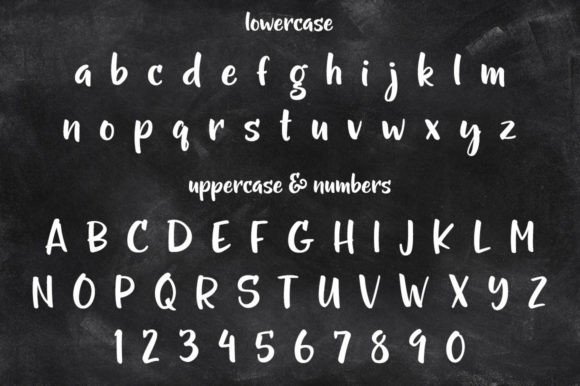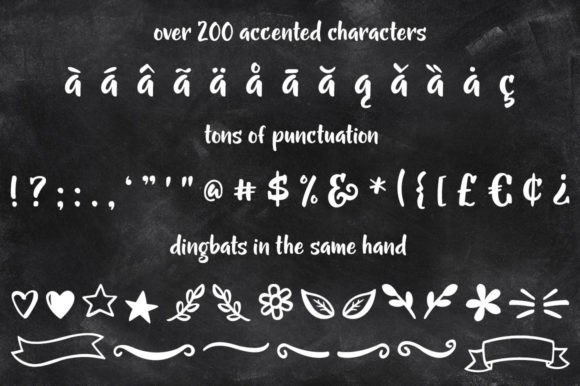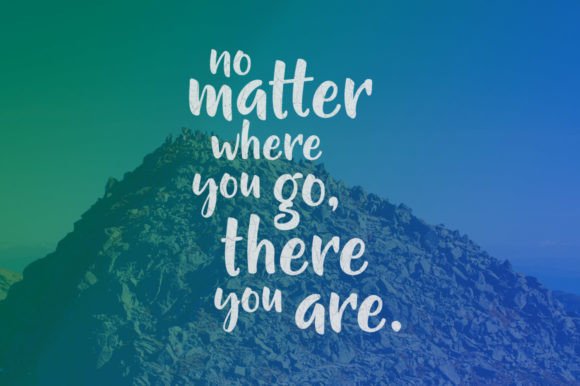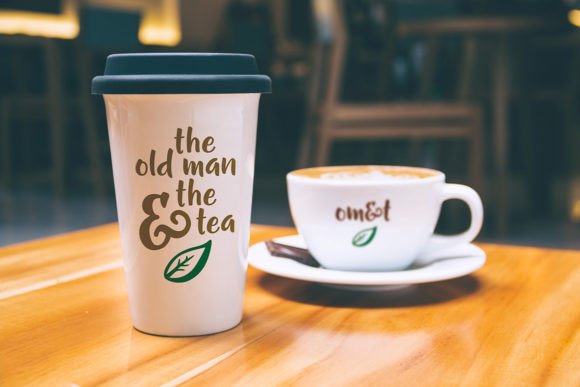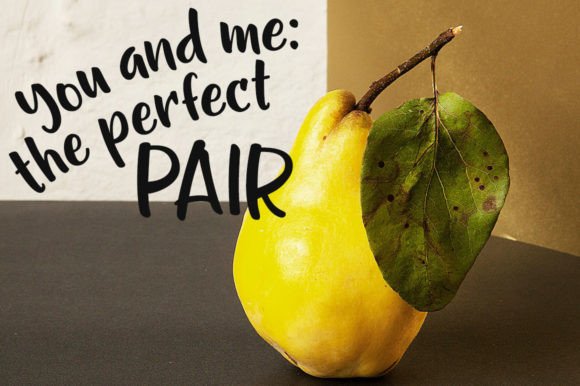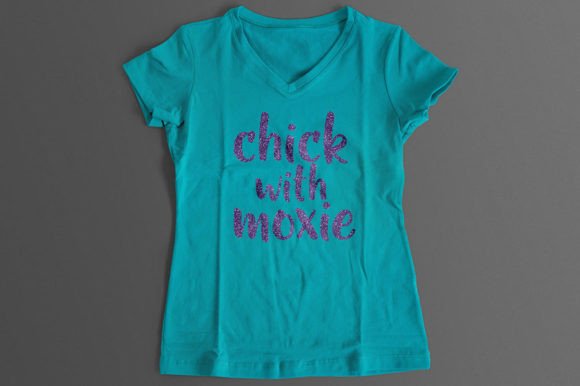
Introduction to Gumption Font
Have you ever found yourself stuck on a creative project, longing for the perfect typography to bring your vision to life? I know I have. There’s something about the imperfect charm of handwritten fonts that can make a design truly pop. That’s why I’m excited to introduce you to the Gumption Font, a beautifully crafted brush script font that’s perfect for adding a touch of whimsy to your next design project.
As a designer, you know how valuable a high-quality font can be. That’s why I love that the Gumption Font is available for free download, making it an accessible design resource for creatives of all levels. With its smooth curves and lines, this font is sure to add a touch of elegance to any design, whether you’re working on a free download project or a commercial campaign with a transparent background.
Key Features of Gumption Font
- High-quality font design suitable for creative projects, available for free download.
- Unique, modern font style with a transparent background, ideal for graphic design and digital art.
- Large character set, including uppercase and lowercase letters, numbers, and special characters.
Honest Review: Gumption Font
I recently came across the Gumption Font, and I was impressed with its clean and modern design. This free download is perfect for designers looking for a high-quality font to add to their creative project.
- ✨ The font’s transparent background makes it easy to work with, allowing for seamless integration with any design.
- ✨ The font’s versatility is impressive, suitable for both digital and print designs.
- ✨ The Gumption Font is highly customizable, making it an excellent design resource for designers who value flexibility.
- ⚠️ The font’s character set is somewhat limited, which may not be ideal for projects requiring a wide range of characters.
- ⚠️ The font may not be suitable for designs that require a lot of text manipulation, as it can become difficult to work with.
Overall, I’m impressed with the Gumption Font’s design and versatility. While it may have some limitations, it’s still a valuable addition to any designer’s toolkit, especially for free download. I’d recommend giving it a try for your next creative project.
Gumption Font
The Gumption Font is a high-quality design resource that can add a unique touch to your creative projects. This versatile font is available for free download and features a transparent background, making it easy to integrate into various design platforms.
Tips for Getting the Most Out of Gumption Font
To get the most out of the Gumption Font, consider the following tips:
– Experiment with different font sizes and styles to achieve the desired effect.
– Combine the Gumption Font with other design elements to create a unique look.
– Use the transparent background to create a sense of depth and dimension in your design.
Common Use Cases for Gumption Font
The Gumption Font is ideal for a variety of creative projects, including:
– Graphic design
– Branding and identity design
– Web design
– Print design
Alternatives to Gumption Font
Q: Is the Gumption Font suitable for use on a website with a transparent background?
Yes, the Gumption Font is designed to work well with transparent backgrounds, making it perfect for use on websites, social media graphics, and other design projects where a high-quality, transparent font is required. The font’s transparent background ensures that it will blend seamlessly with your design, without any unwanted background elements.